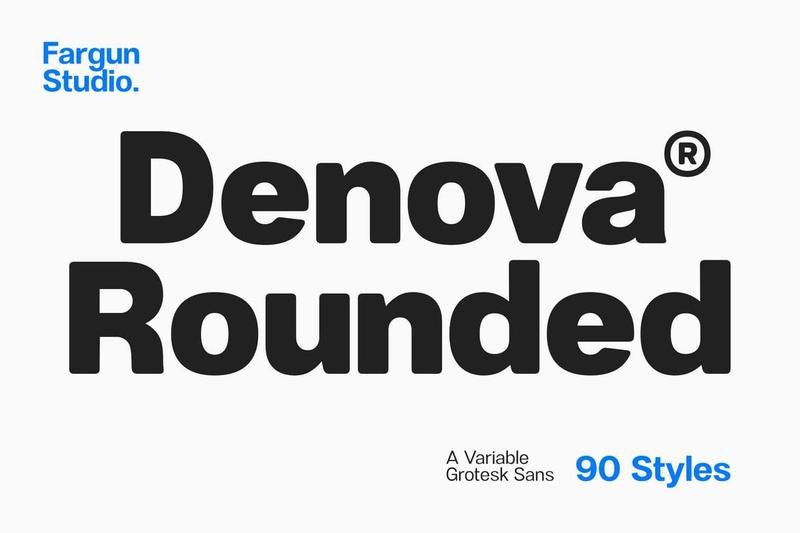
Denova Rounded X3F22A9
**Denova Rounded** is a contemporary variable grotesque sans serif with a softer, more humanist touch. Featuring smooth rounded forms, refined proportions, and open letterforms, it delivers excellent readability with a warm, approachable feel. Designed for branding, editorial, UI, and corporate design, Denova Rounded balances clarity, professionalism, and friendly character.
* 90 Font Styles
* 9 Widths
* 5 Weights
* Upright & Italic Styles
* OpenType Features
* Standard & Discretionary Ligatures
* Stylistic Alternates